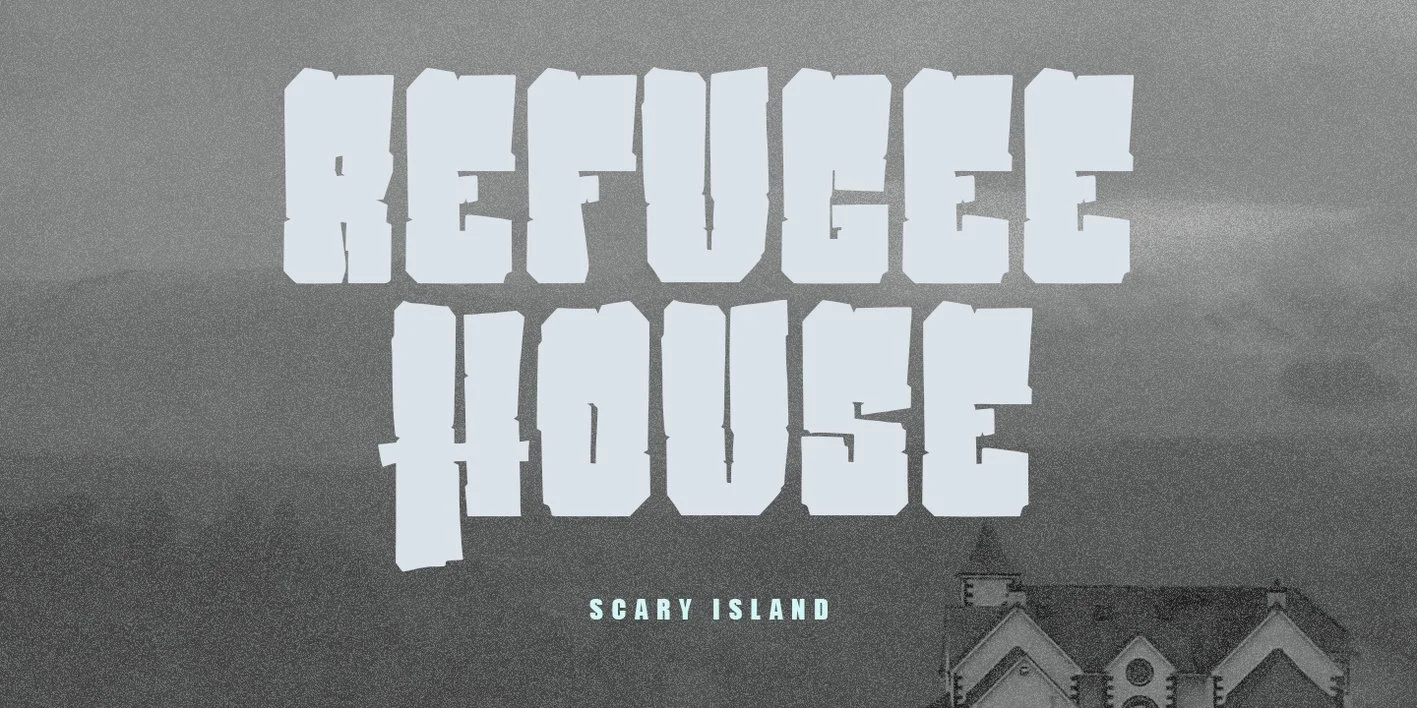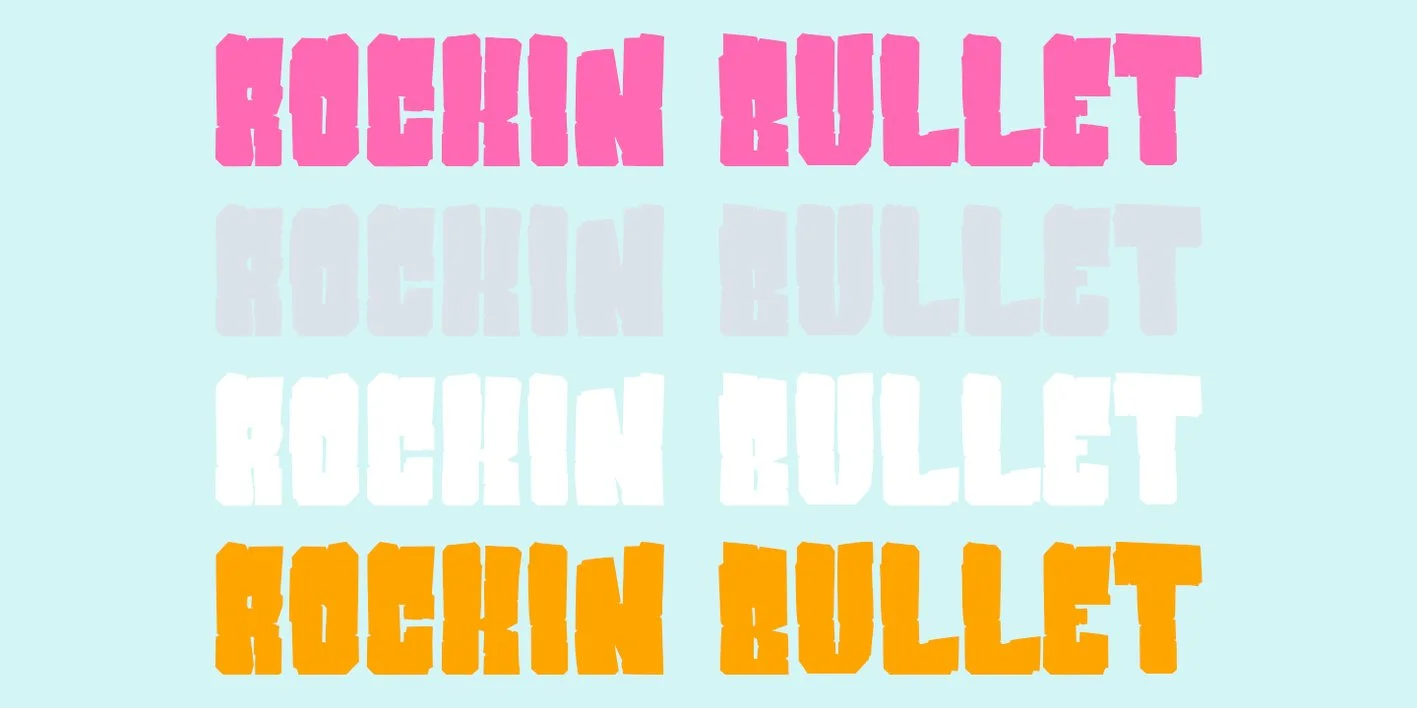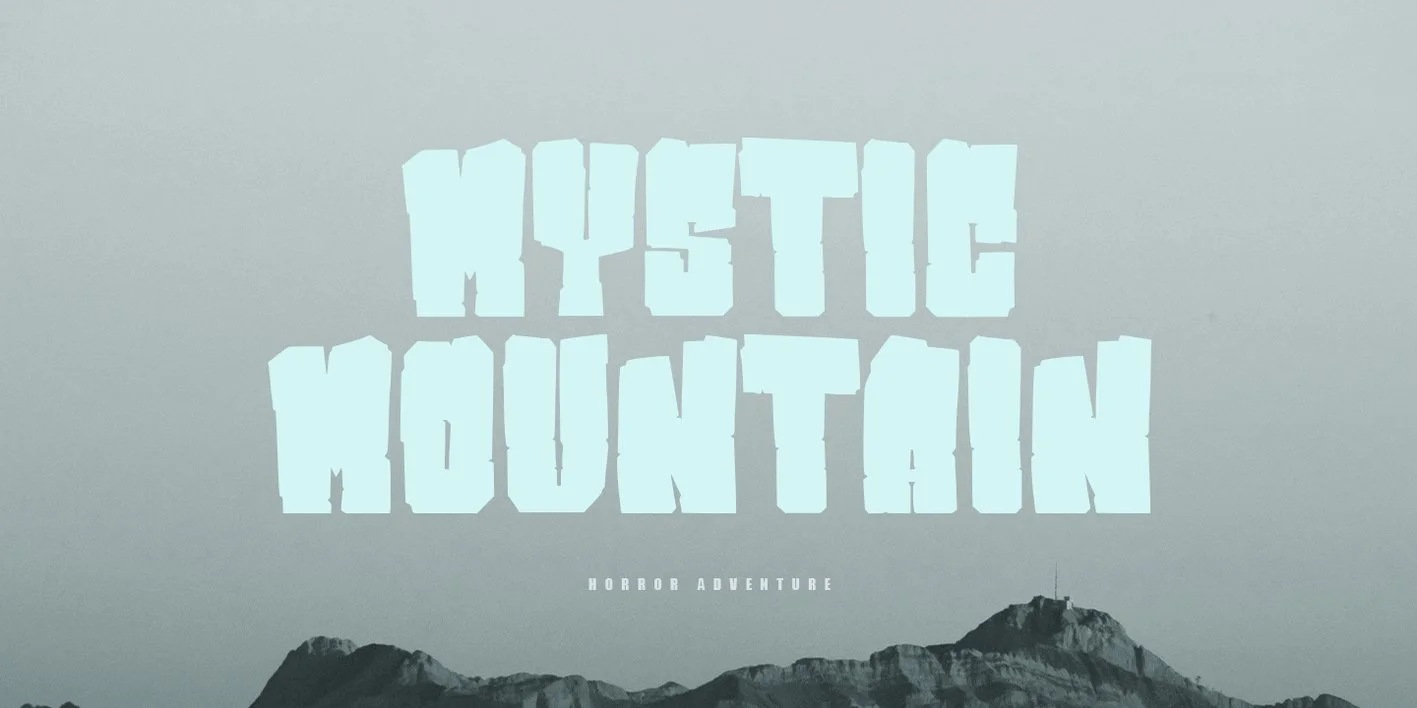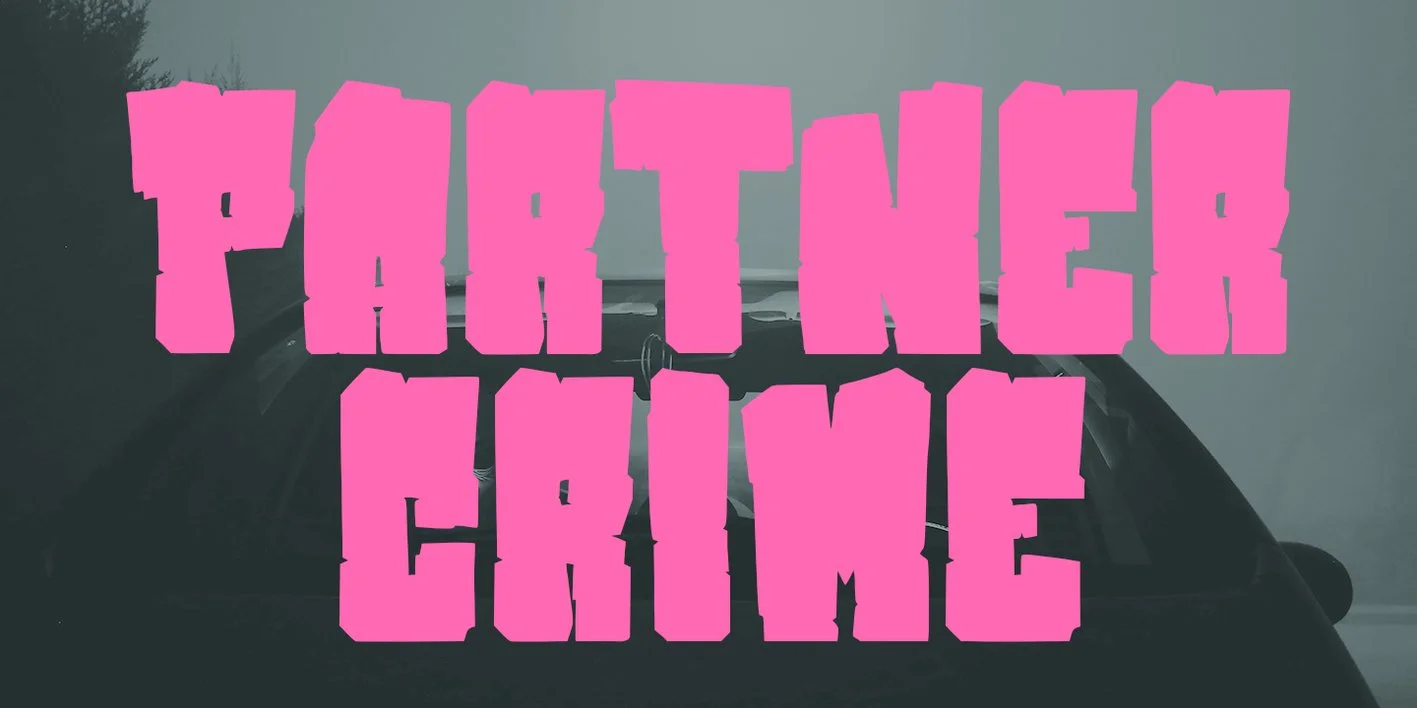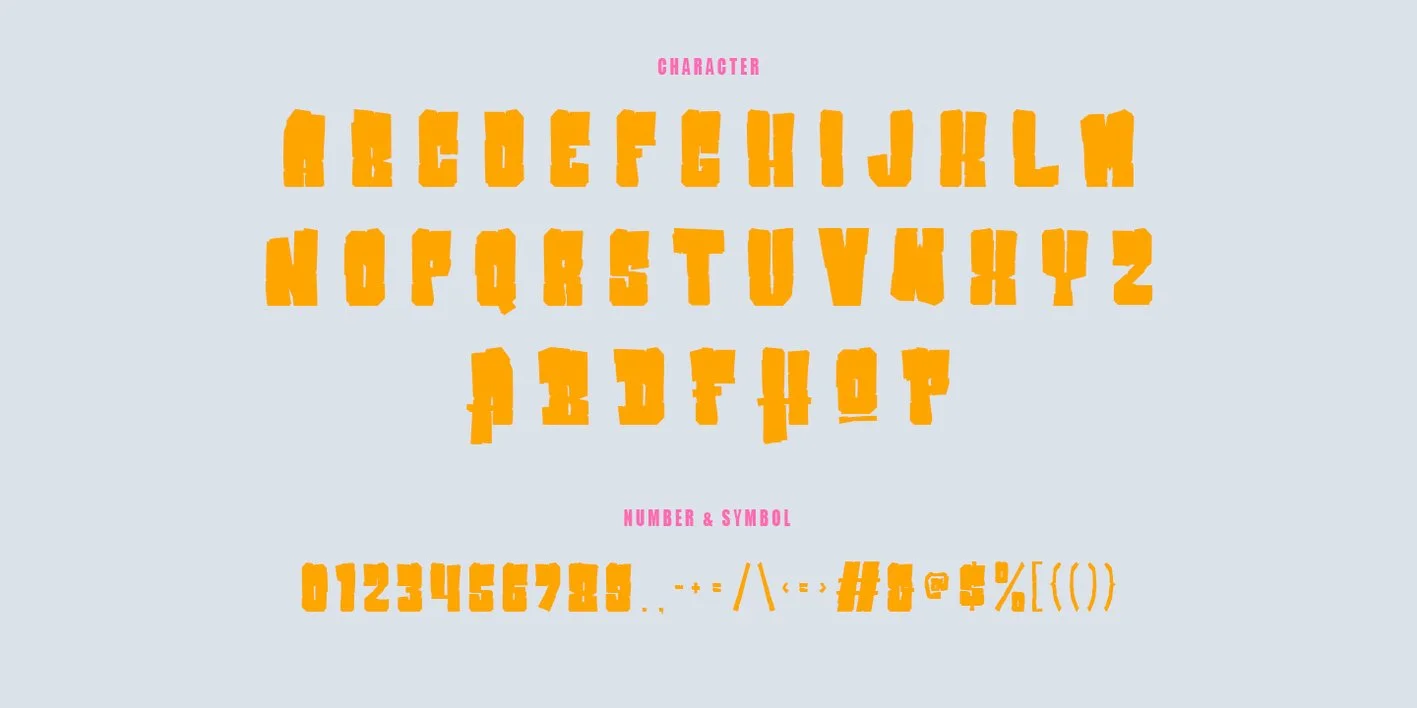
MC Stone Skin Font
Typography shapes perception at a subconscious level. MC Stone Skin leverages a confident voice that adapts to diverse briefs to make every composition feel considered. The typeface brings a versatile sensibility to a broad range of creative disciplines, with consistent type colour across continuous text that holds up whether the work is print-first or screen-first.
In practice, MC Stone Skin proves particularly effective for logo design, packaging design, advertising campaigns, signage systems, editorial layouts. Designers reaching for it find that the type decisions feel resolved rather than laboured — a useful quality when client timelines are tight.
The range of applications extends to social media graphics, poster creation, brand identity systems, web design. That breadth is deliberate: the proportions and spacing were stress-tested across a wide range of mock briefs before the typeface was finalised.
Brand strategists building visual languages find MC Stone Skin a reliable choice for projects that demand both personality and restraint. The design avoids the self-conscious quirkiness that dates quickly, settling instead for considered distinctiveness that holds up over time.